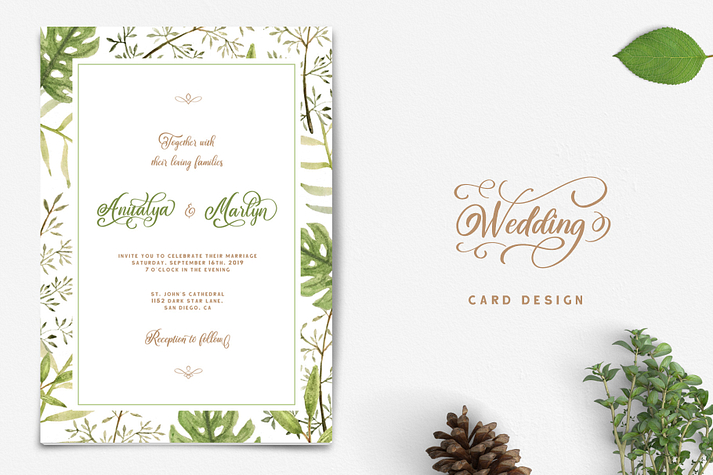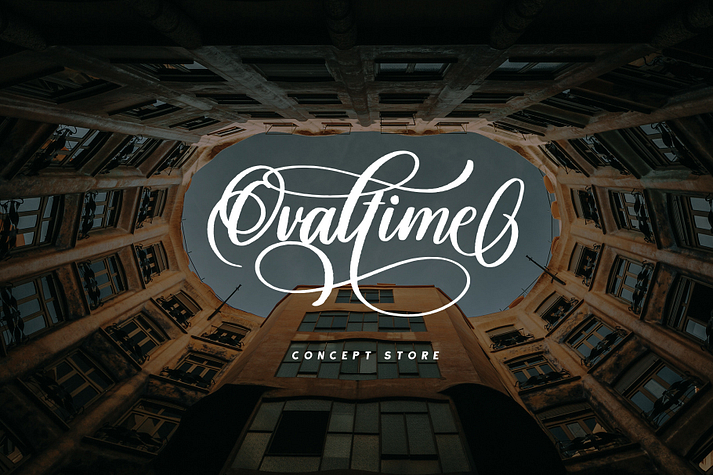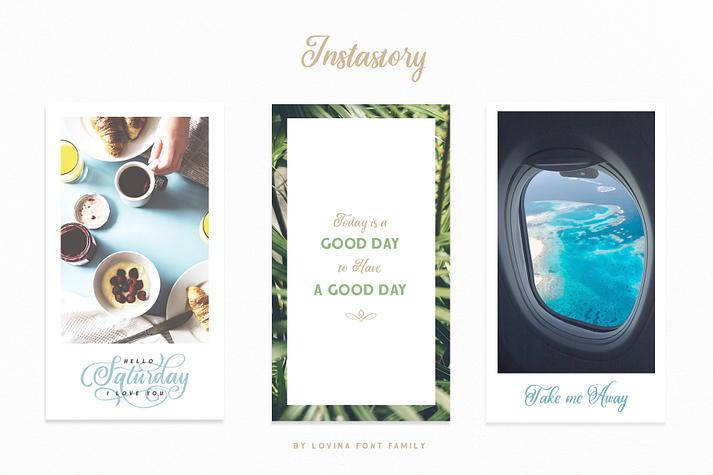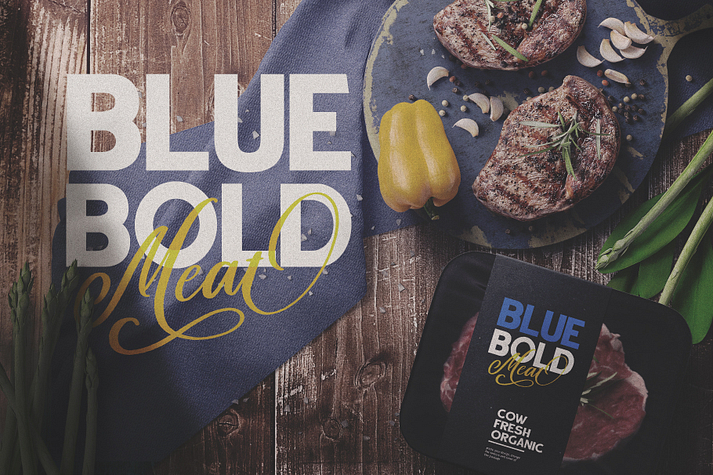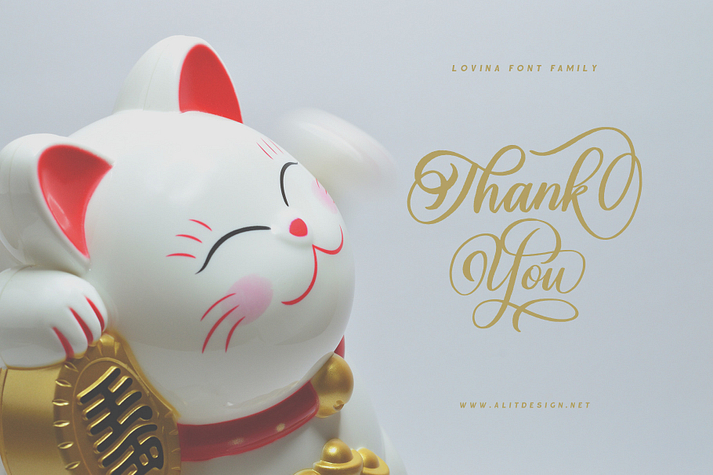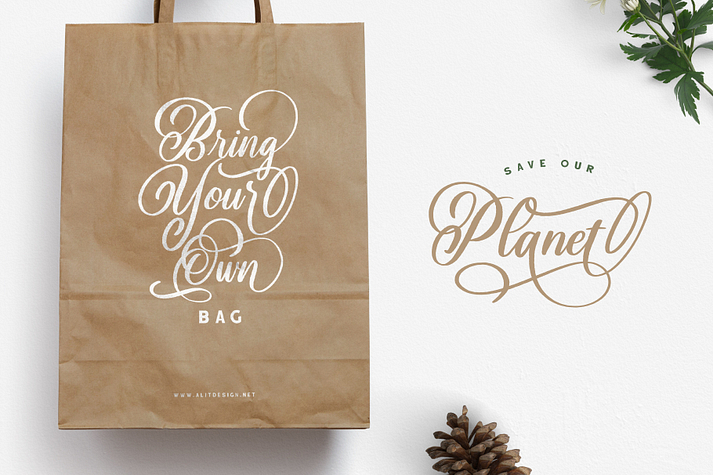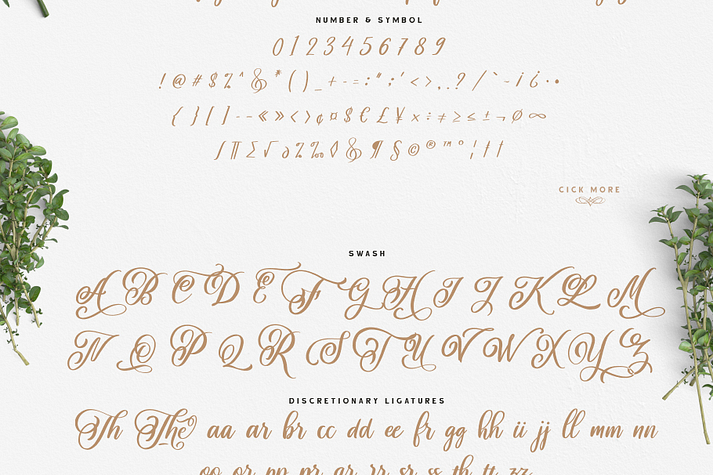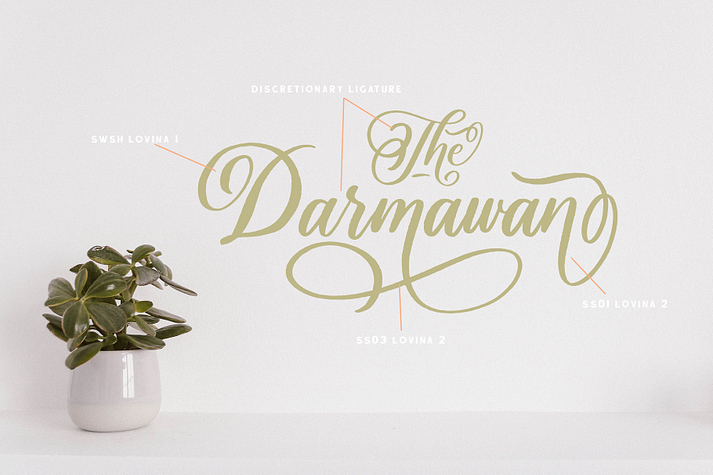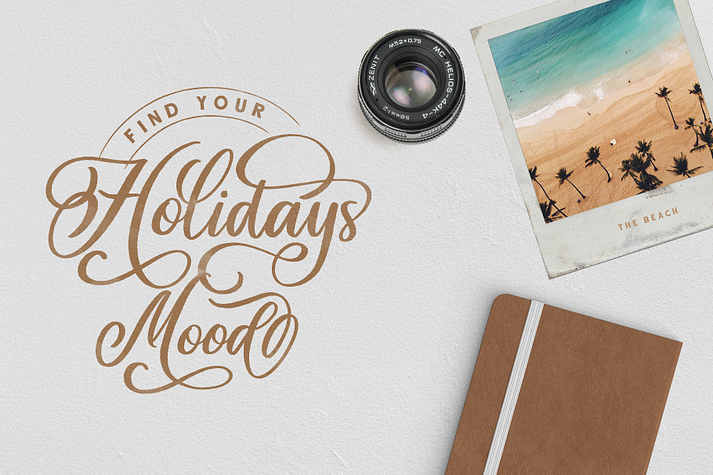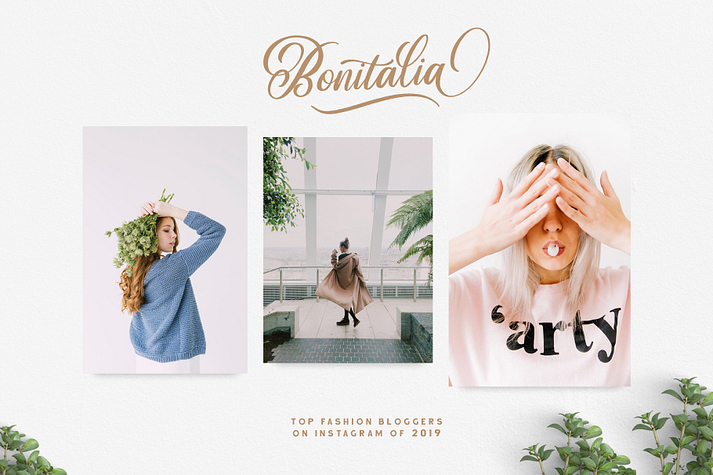
LOVINA Sans Serif
LOVINA Sans Serif is a display sans, script and dingbat font family. This typeface has seven styles and was published by Alit Design.
Introducing Lovina Font Family is our first Font in 2019, has a handwritten script style with a touch of natural rough from the shape of the brush. For Scripts, Lovina fonts have 2 choices namely "Lovina Regular" and "Lovina 2 Regular" in this font script there are many alternative choices of characters from Swash Lowercase, SS01 to SS06.
For Lovina Sans Serif has 4 styles, namely, Lovina Sans Serif Regular, Italic, Rough and Rough Italic. In addition, Lovina Fonts Family also includes Lovina Swash which is a lot of choices and unique. If the total of all families has 3,603 Glyphs
Lovina Fonts Family is very worthy of being the newest collection in 2019 as a project design creation, social media quote, badges, logotype, fashion design etc.
• Character Set A-Z
• Numerals & Punctuations (OpenType Standard)
• Accents (Multilingual characters)
• Stylistic Alternates
• Discretionary Ligatures
• SS01-SS06
• SWASH